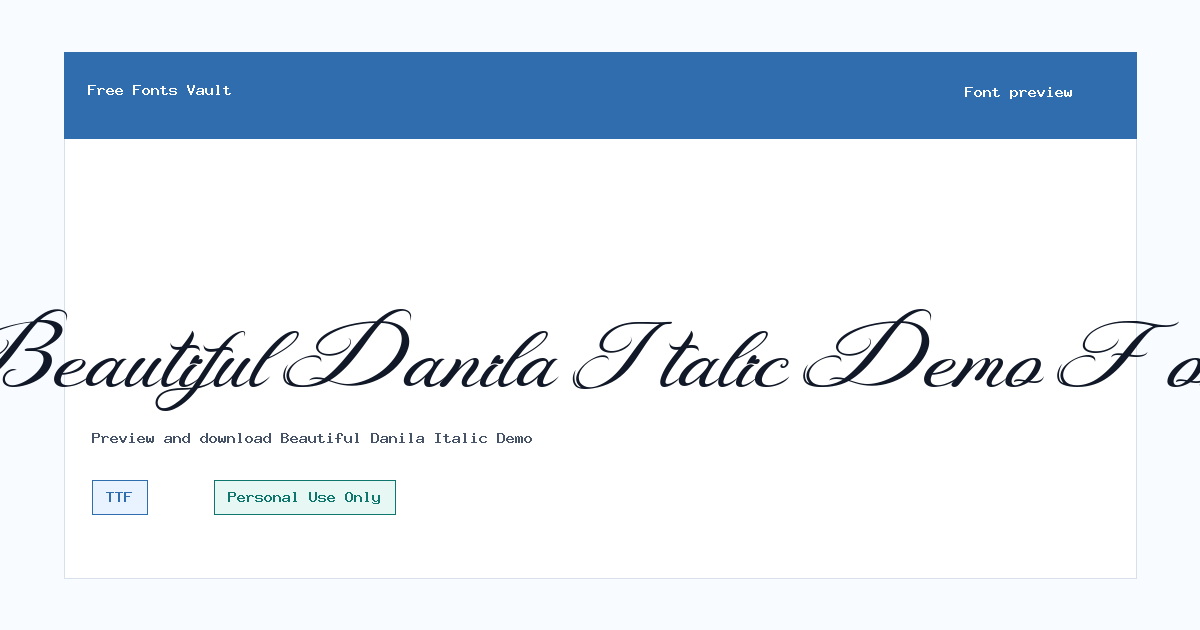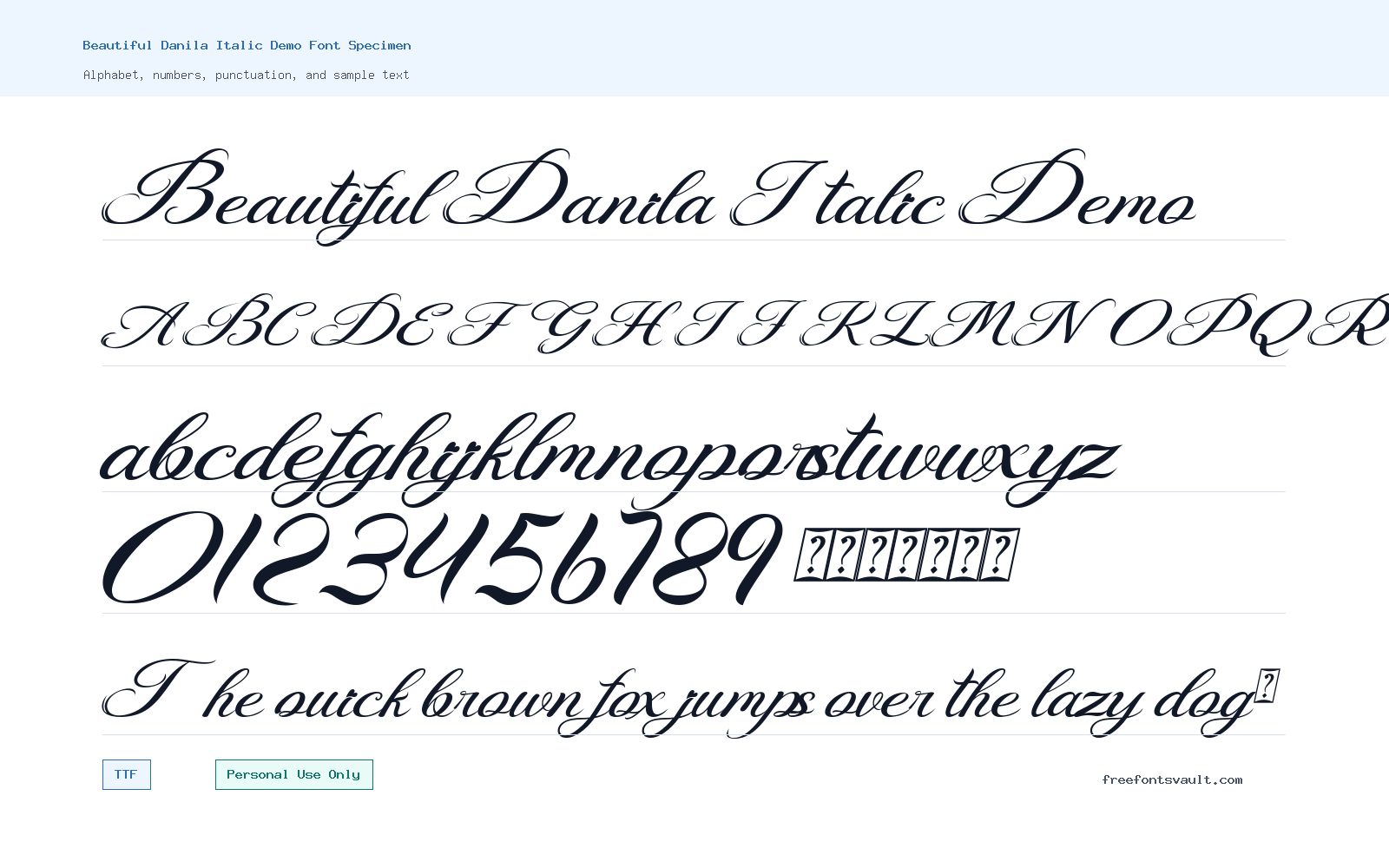
Beautiful Danila Italic Demo
- Designer Yoga Letter 2026 (Isroni Yoga Prasetya)
Beautiful Danila Italic Demo font.
Beautiful Danila Italic Demo is a personal-use calligraphy script font with an italic flow and a decorative handwritten feel. It is best tested in short words, names, and display text where the slanted style can stay readable.
About Beautiful Danila Italic Demo
Beautiful Danila Italic Demo comes as a TTF font file in an italic style with a regular 400 weight. The name and license text point to a calligraphy script design, so visitors should expect a more expressive look than a plain text face. Use the preview box to check how its strokes connect, how uppercase and lowercase letters balance, and whether the spacing works for the exact words you plan to use.
This kind of font is usually strongest when it has room to breathe. Try it for a name, a short headline, a quote line, a greeting, or a decorative label rather than long paragraphs. If the text becomes hard to scan, pair it with a simple sans serif or serif for supporting information. Keep contrast high, avoid very small sizes, and test punctuation and numbers if your design needs them.
- Italic calligraphy script style with a handwritten display character.
- Names, signatures, invitations, greeting cards, and short personal messages.
- Social graphics, quote images, packaging mockups, and decorative headings.
For the best preview, type the exact phrase you want to design rather than judging from the default sample. Script fonts can change a lot from word to word because of joins, swashes, spacing, and letter shapes. Test one-line layouts first, then adjust size, tracking, and line height. If you use it on a busy image, add space around the letters or place the text over a calm background so the script remains clear.
What type of projects suit this font?
It suits short decorative text such as names, invitations, quotes, greeting cards, social posts, and personal design experiments.